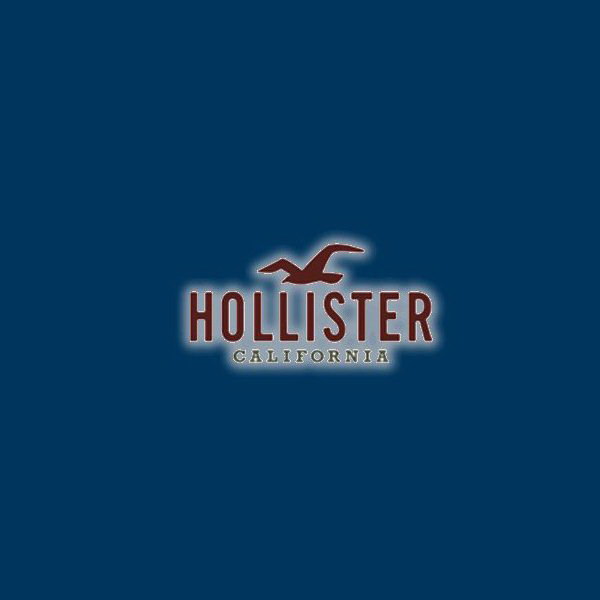
Hollister Font
ApparelHollister is a clothing brand owned by Abercrombie & Fitch Co. It was founded in 2000 and targets a younger, teen, and young adult market. A seagull with its wings spread and the wordmark underneath makes the Hollister logo.
The logotype is reminiscent of League Gothic Regular, released by The League of Moveable Type. Four different variations of the League Gothic font family are available under the Open Font License. You can download the full font family for free in the Fonts Used Section.